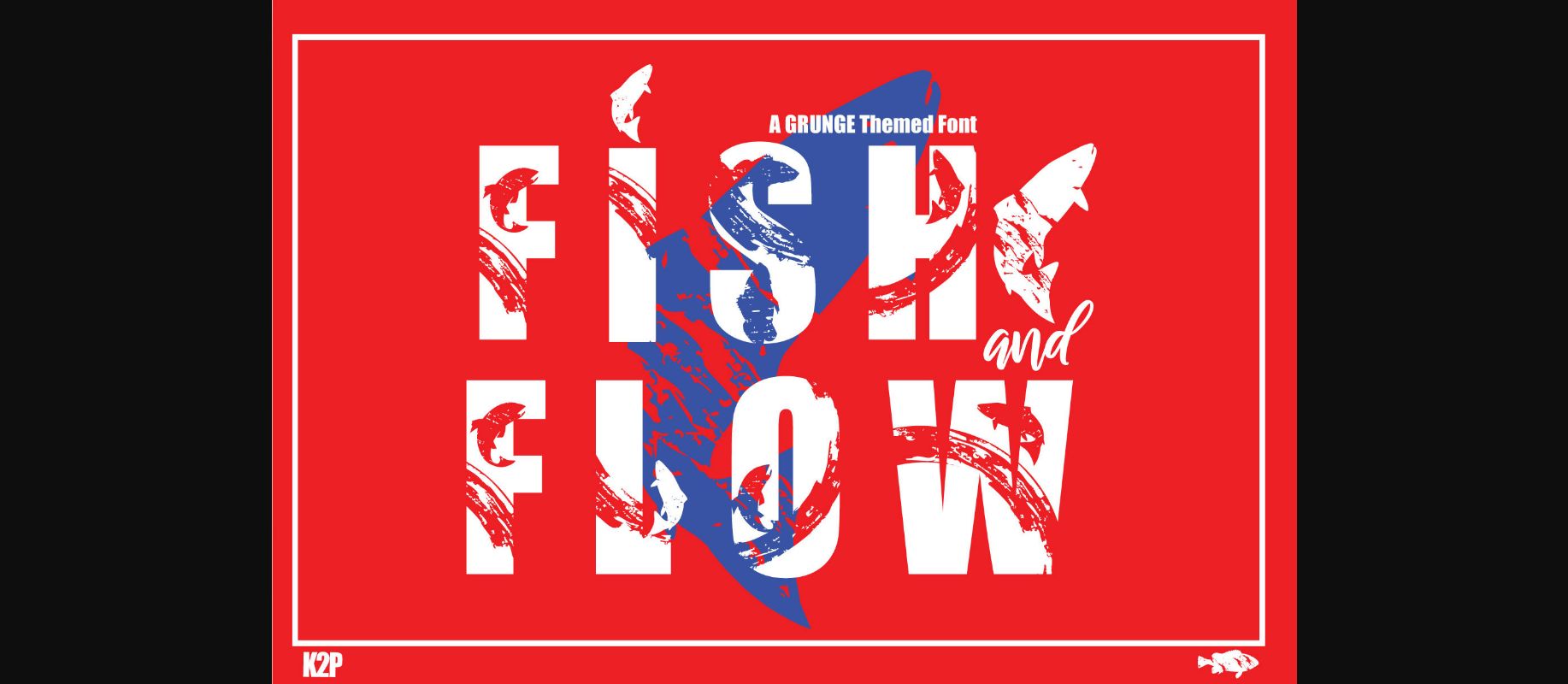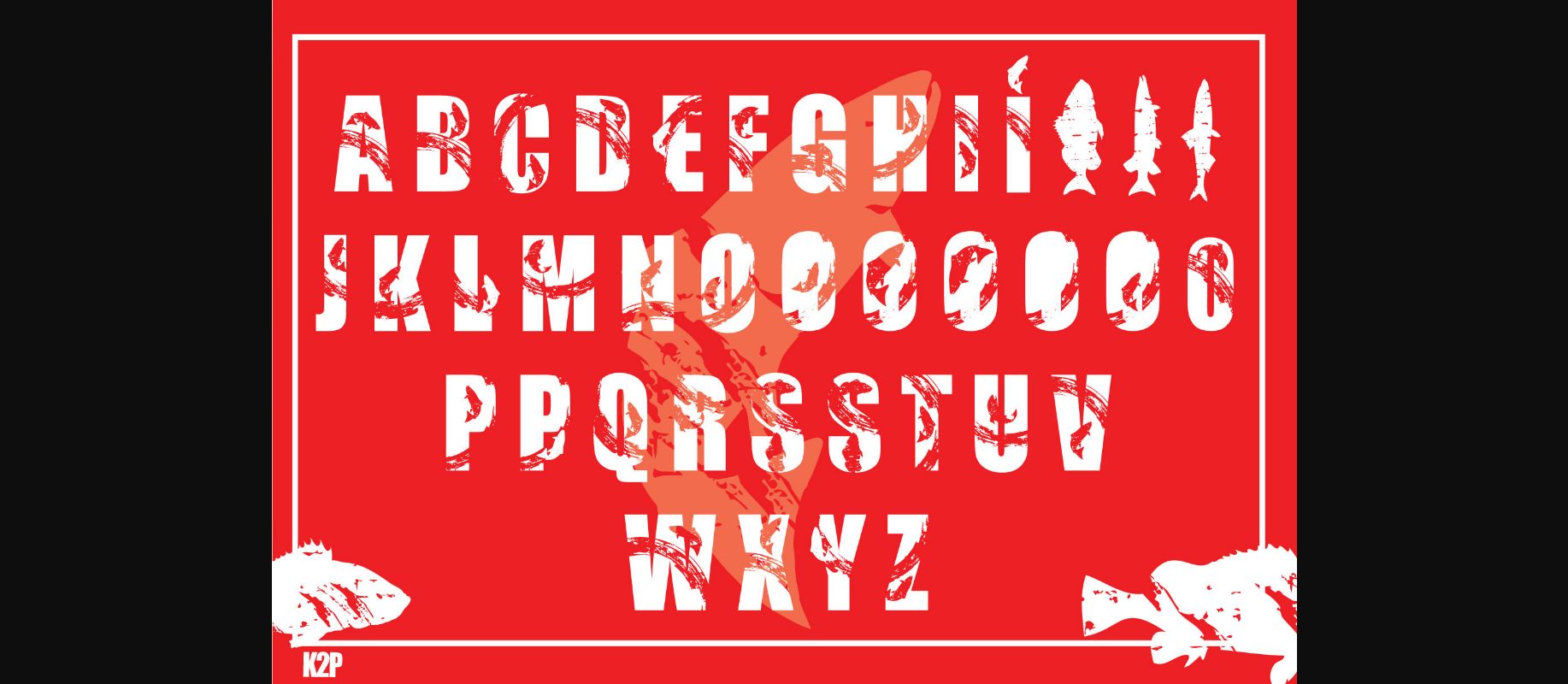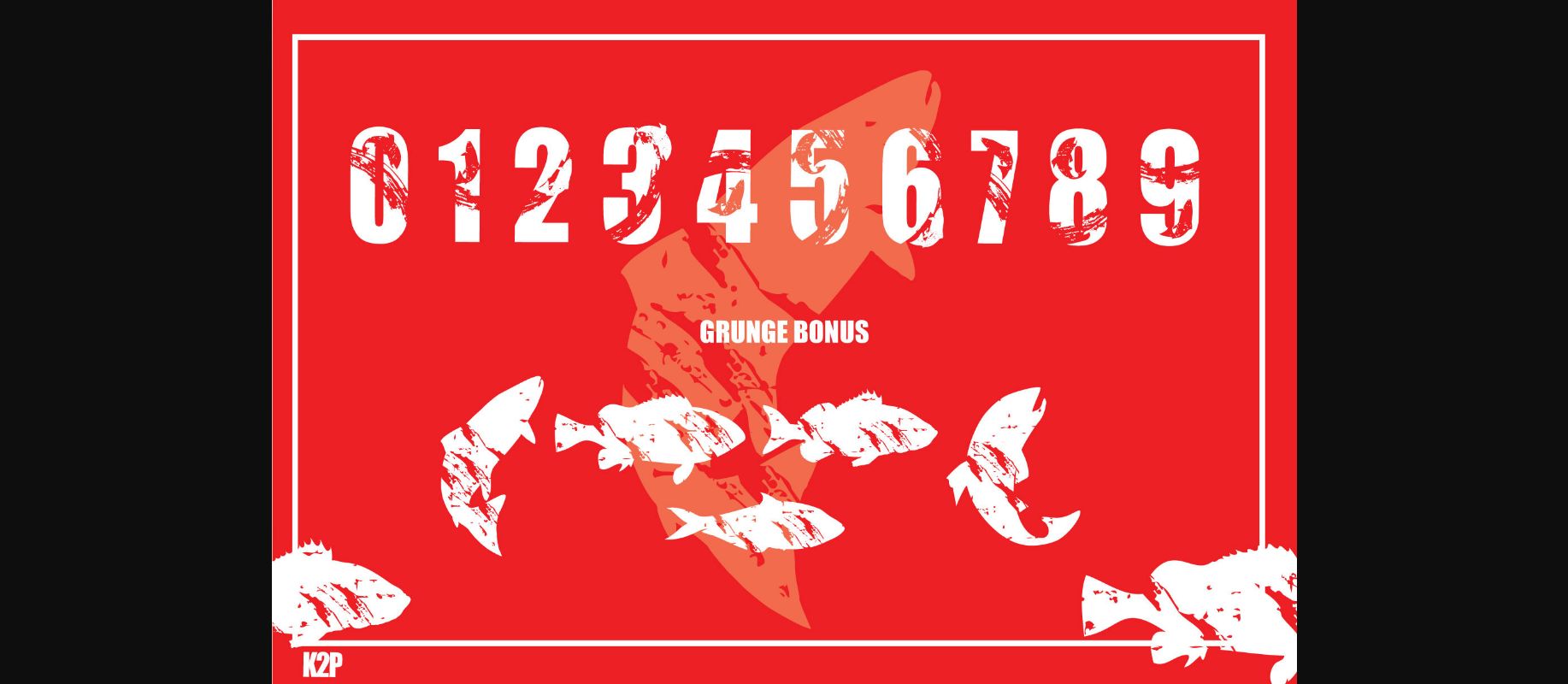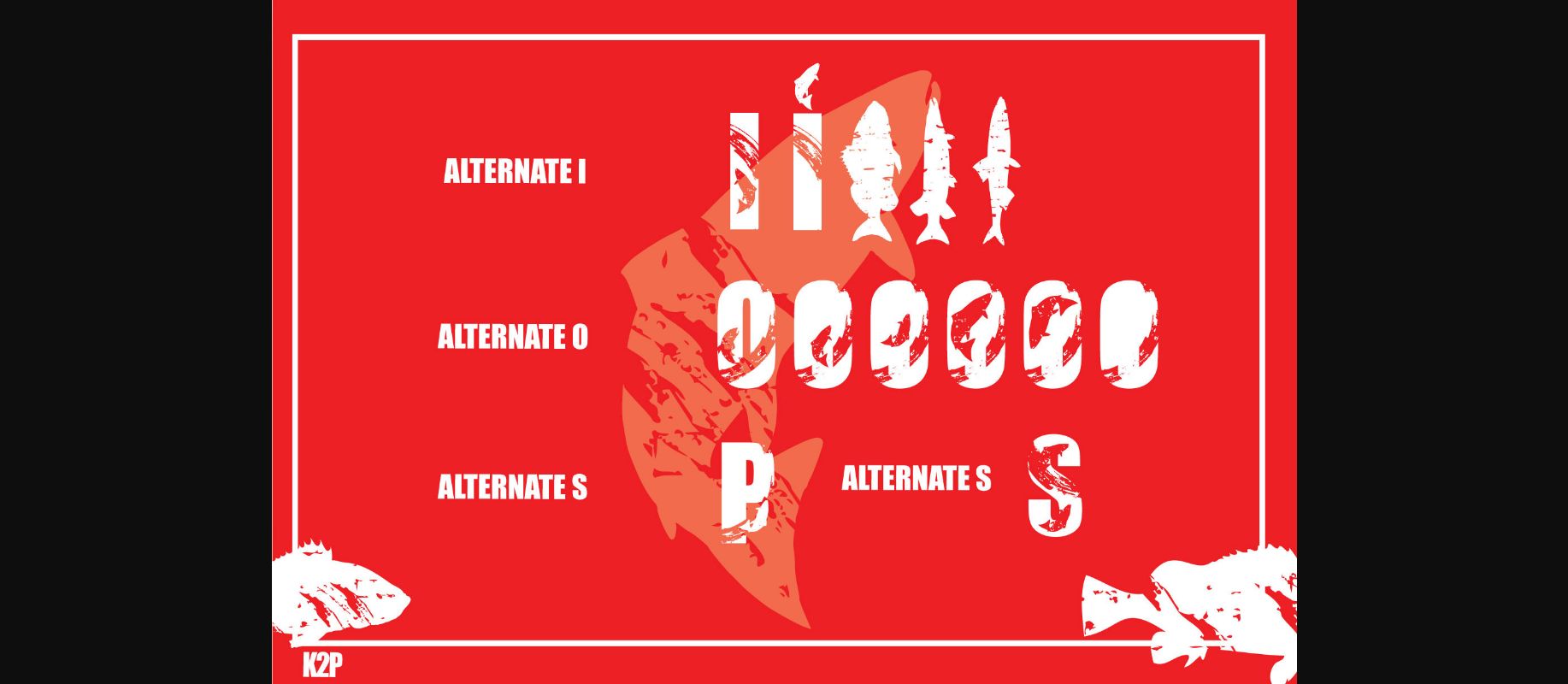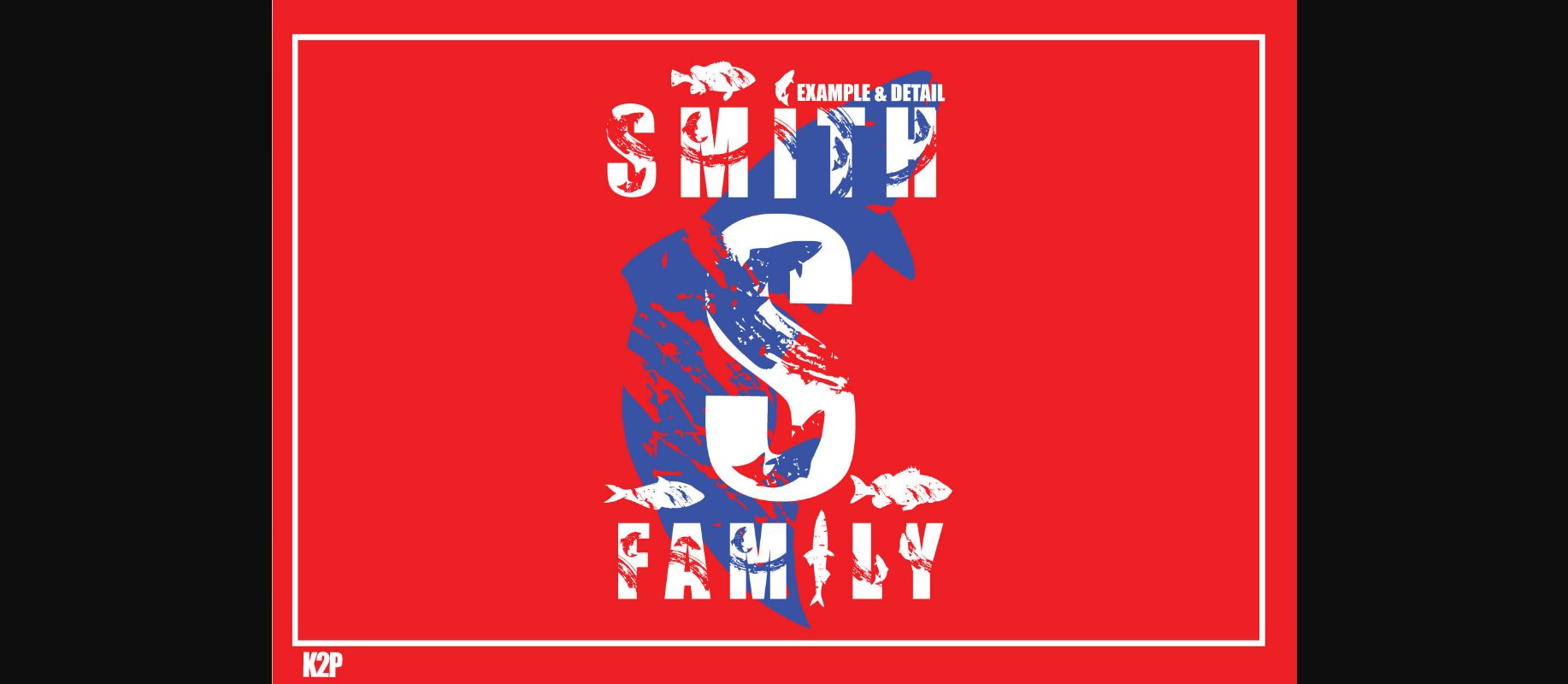
HomeDecorative FontsFish and Flow Font Decorative Fonts Fish and Flow Font FacebookXPinterestWhatsApp 1 of 7 ... Fish and Flow Font Poster 2... Fish and Flow Font Poster 3... Fish and Flow Font Poster 4... Fish and Flow Font Poster 5... Fish and Flow Font Poster 6... Fish and Flow Font Poster 7... About Fish and Flow Font Fish and Flow is a bold and assertive decorative font. It is perfect for various design ideas related to fishing, camping, or both. Have fun with this beautiful font, and explore its endless variations! DOWNLOAD NOW People also explored Cathedral Cheetatos Font Maguire Font Nursery Font Springbreak Font Hopkins Font Vanilla Milk Font Savana Font Cerlyneeta Font 329 0 TagsFish and Flow Font Previous articleBirthday Candle FontNext articleHello Spring Monogram Font LEAVE A REPLY Cancel reply Comment: Please enter your comment! Name:* Please enter your name here Email:* You have entered an incorrect email address! Please enter your email address here Website: Save my name, email, and website in this browser for the next time I comment. Personal Use Free Kilsonburg Personal Use Free Read more about this font Summer Pisces Personal Use Free Read more about this font Krabuler Personal Use Free Read more about this font Legacy Personal Use Free Read more about this font BLOG How to Install and Use Fonts on Windows, macOS, and Web Projects How to Install and Use Fonts on Windows, macOS, and Web Projects Fonts are a crucial part of design and branding. Whether you’re designing a... Modern Sans-Serif Fonts That Brands Love in 2025 Exploring Font Trends Top 7 Google Fonts Alternatives for Faster and Privacy-Friendly Web Design (2025)